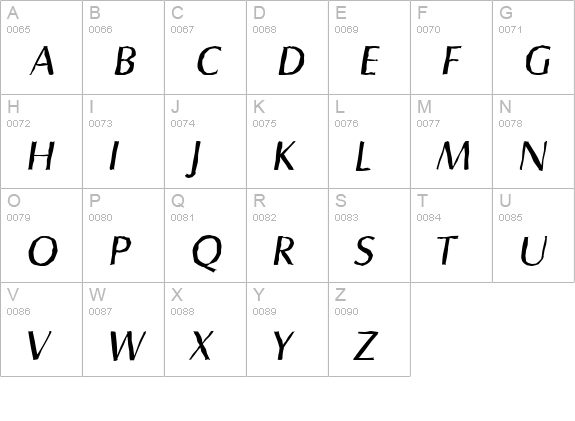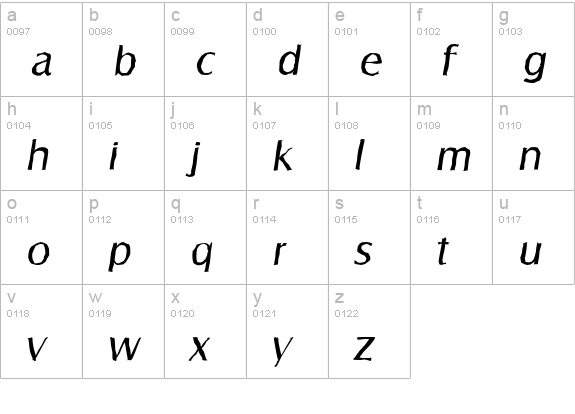
SalzburgAntique-Italic is a distinctive, italic variant in the SalzburgAntique typeface family \xE2\x80\x94 well suited to design and typography projects.
SalzburgAntique-Italic font exudes elegance and sophistication with its delicate curves and timeless design. This exquisite font captures the essence of vintage charm, making it perfect for adding a touch of nostalgia to your projects. The slanted italic style adds a sense of movement and grace, making it ideal for conveying a sense of luxury and refinement. Best of all, SalzburgAntique-Italic font is available for free download at FontsMarket.com. Whether you're working on a wedding invitation, a branding project, or simply want to add a touch of class to your designs, this font is sure to elevate your work to the next level. Download SalzburgAntique-Italic today and bring a touch of old-world glamour to your creative endeavors.